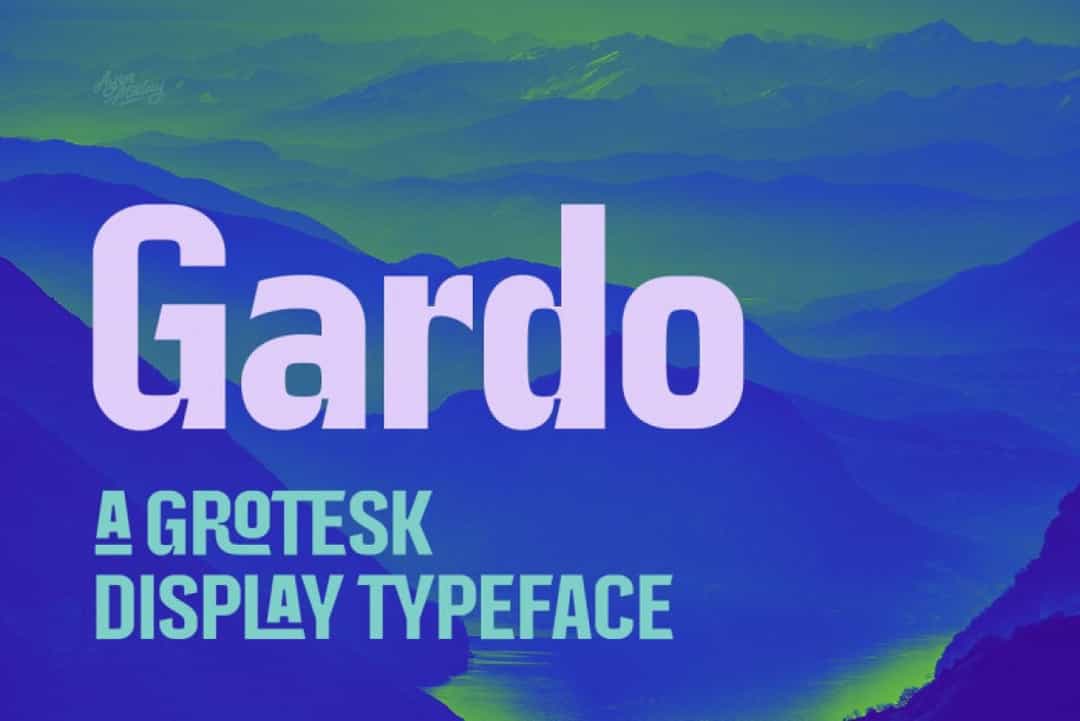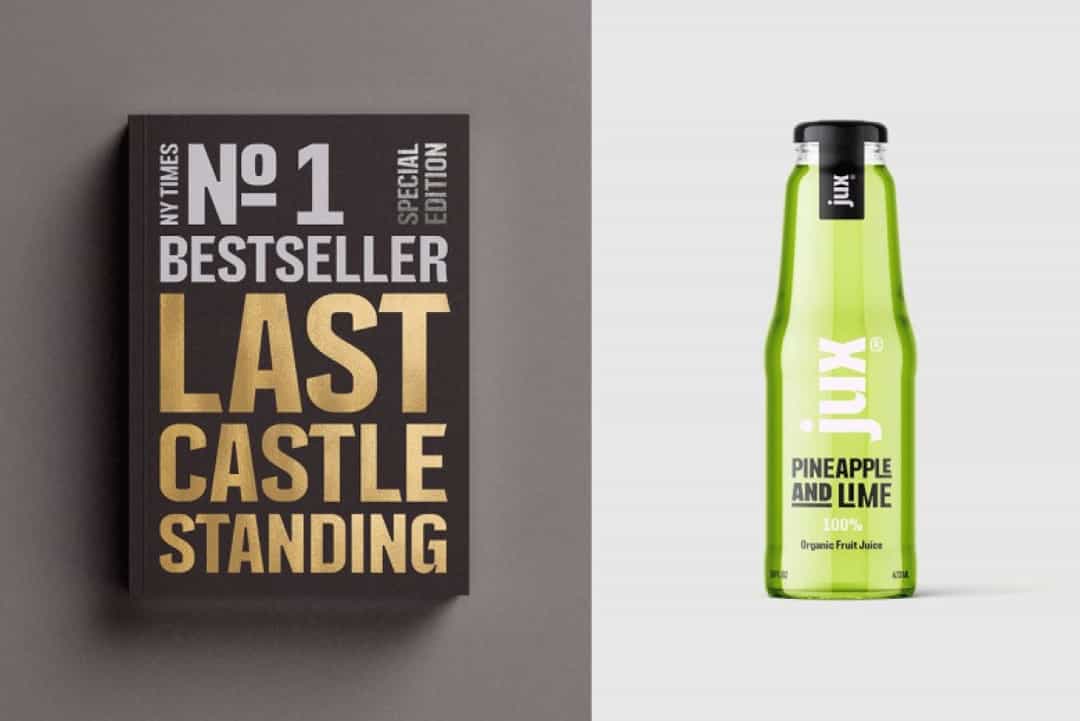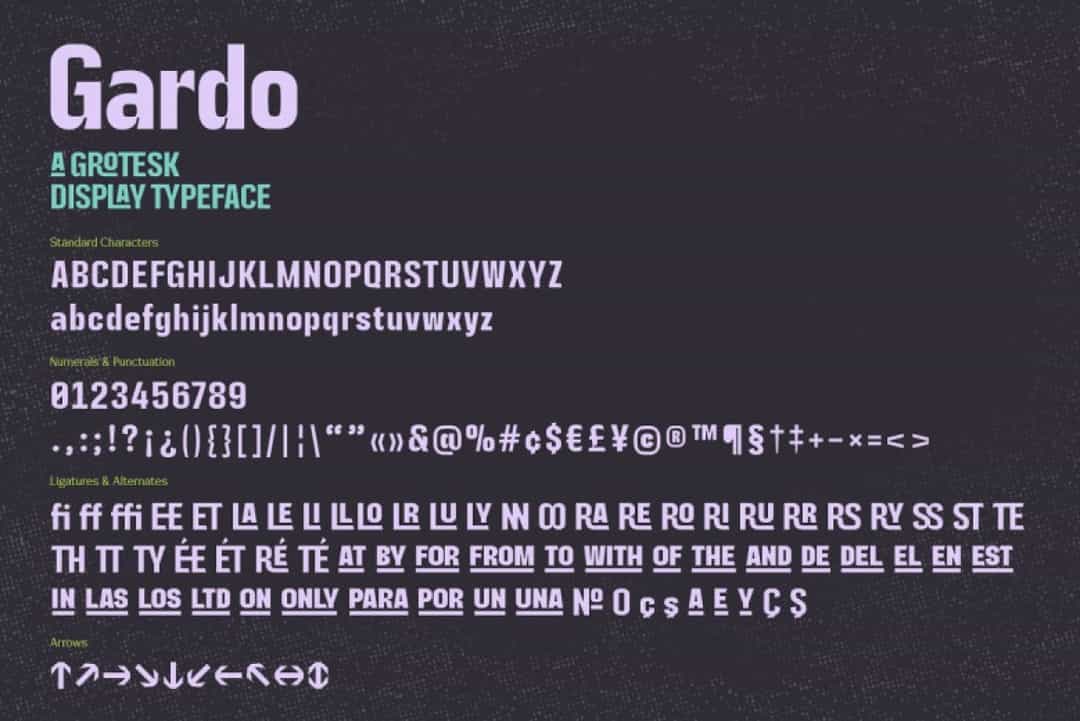
Gardo Grotesk can be described as an impressive reduced display typeface designed to make an impressionful first impression. Boasting eye-catching words and ligatures as well as stunning visuals, Gardo Grotesk captivates its readers immediately.